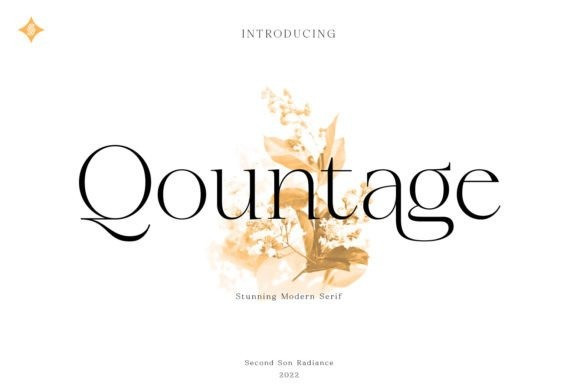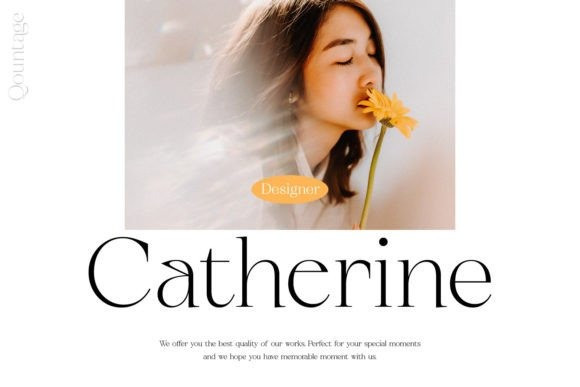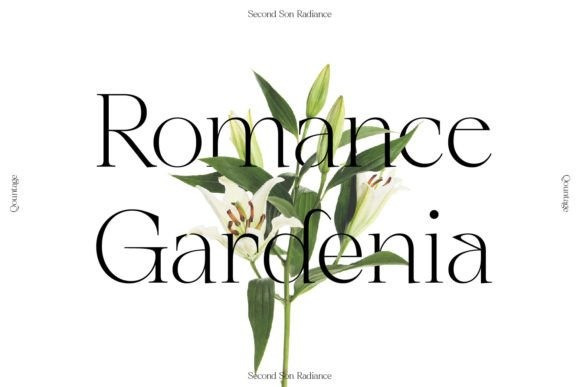
Qountage Font
Qountage feels playfully nostalgic and delivers an incredible vintage aesthetic. Use this serif font to add that special retro touch to any design idea you can think of!